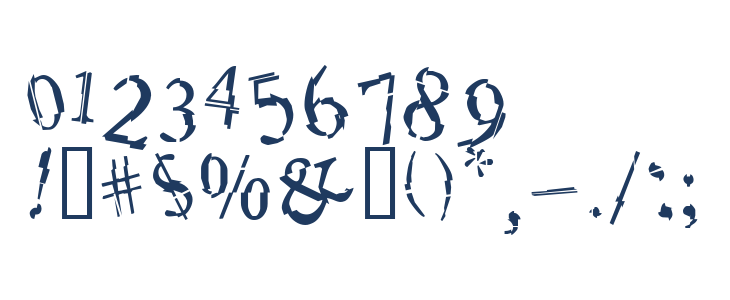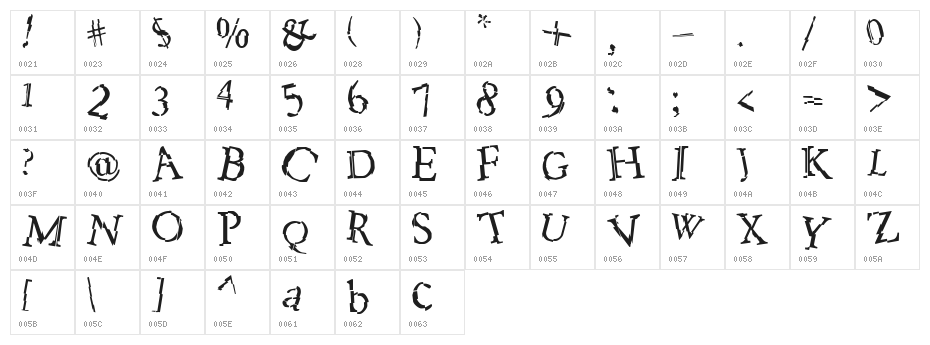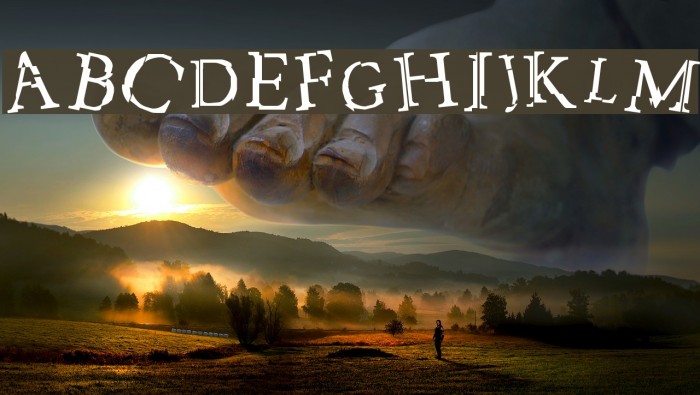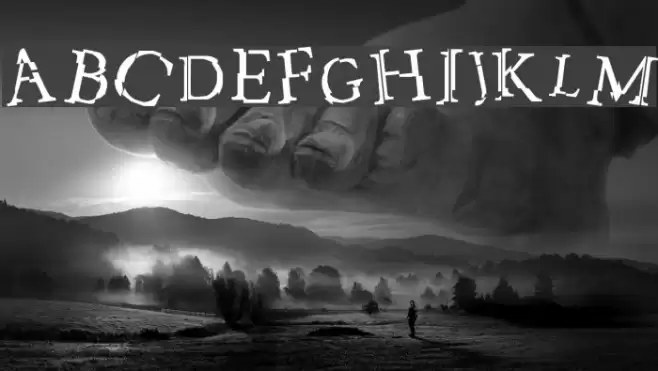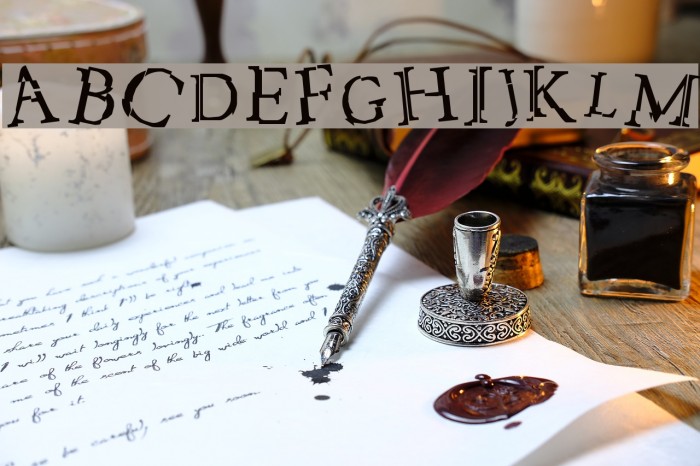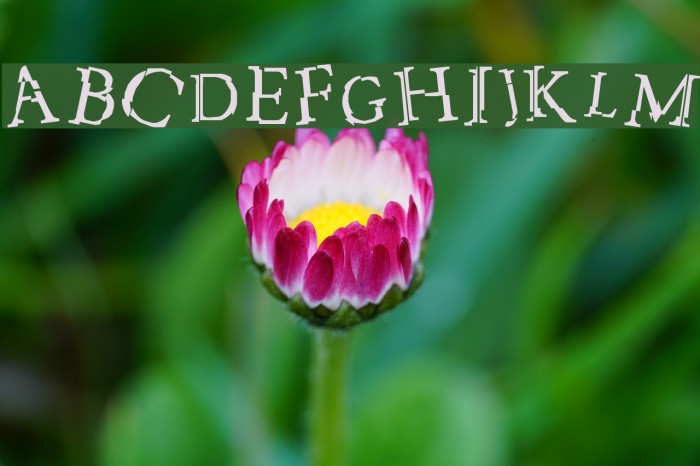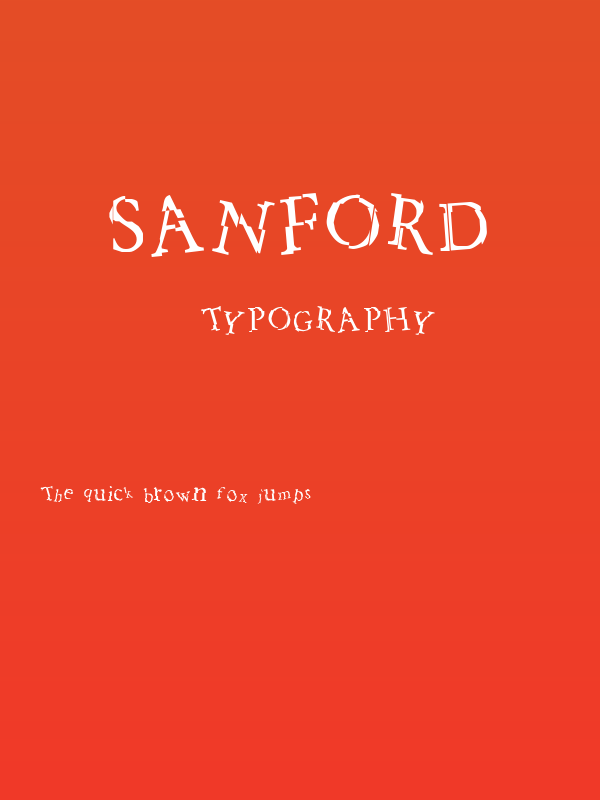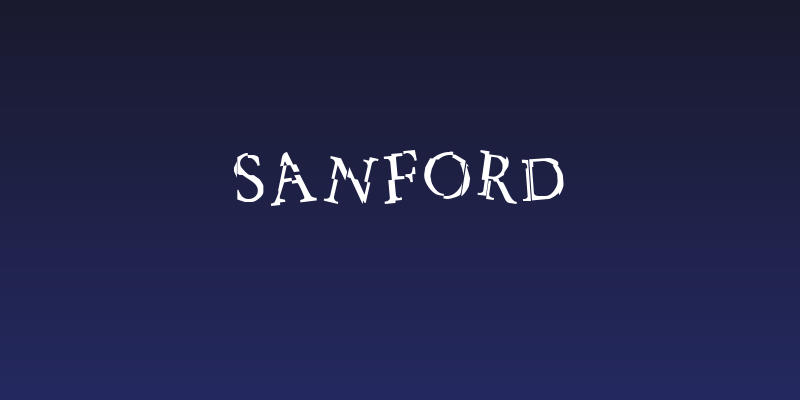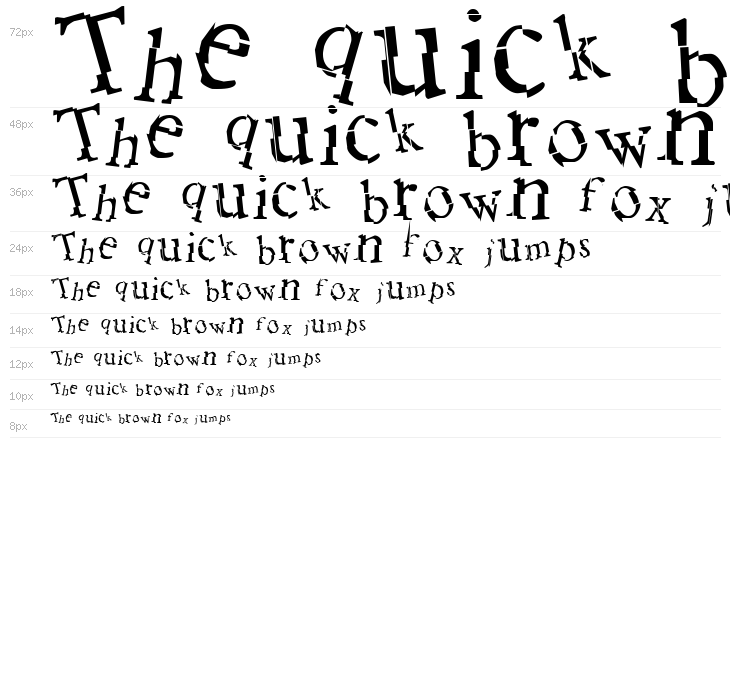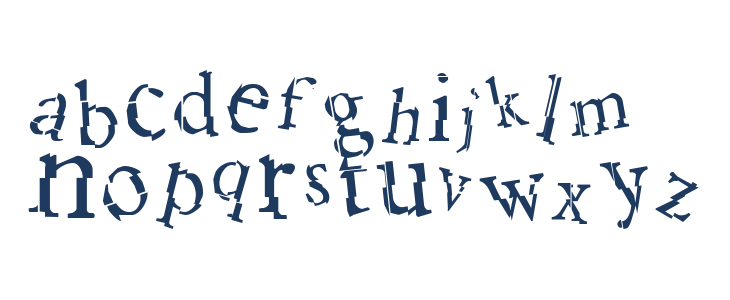
Sanford Font
Sanford Description
This font exhibits a highly decorative and distressed style, characterized by irregular and jagged edges that give it a chaotic and grunge-like appearance. The letters are unevenly shaped, with varying thicknesses and angles, creating a sense of movement and unpredictability. This style is reminiscent of a cut-out or collage effect, where each character appears to be pieced together from different elements. The uppercase and lowercase letters maintain this fragmented look, while the numerals and special characters follow suit, adding to the overall disordered aesthetic. The font's unique design makes it stand out, ideal for projects that require a bold and unconventional look.
| Use Case | Headlines, Posters, Artistic Designs |
| Proposed Projects | Ideal for album covers, posters, or any design project seeking a bold, edgy aesthetic. |